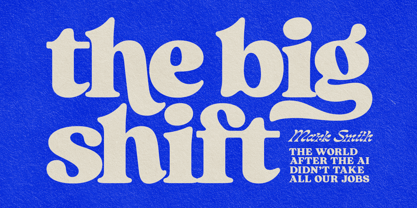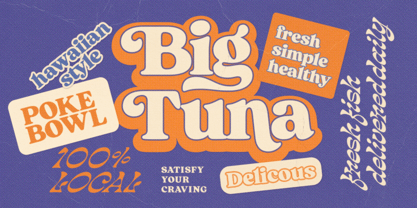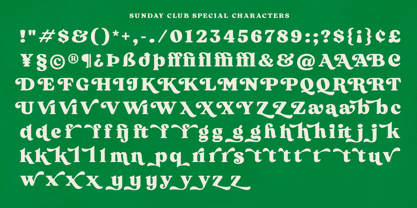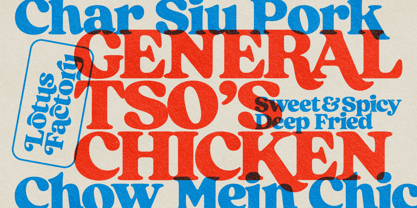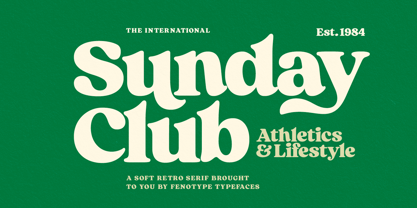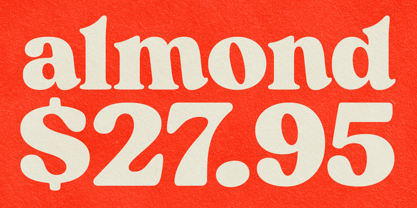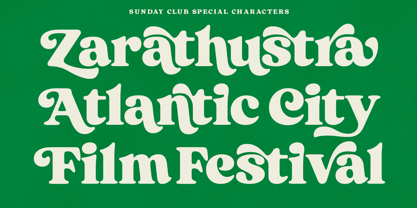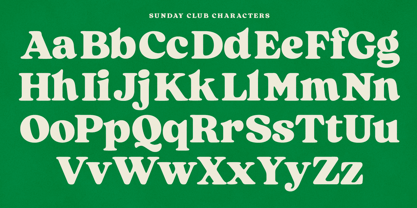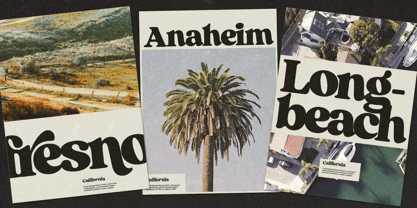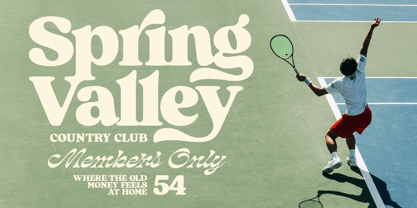
Sunday Club
by Fenotype
The Sunday Club Font Family was designed by Emil Karl Bertell and published by Fenotype. Sunday Club contains 1 styles.
Sunday Club is a blend of warm nostalgia and nonchalant upper-middle class confidence. It’s design is rooted in history but polished for today’s requirements.
Sunday Club’s style is equipped with total over 110 alternate characters set in various OpentType features: Swash, Stylistic and Titling Alternates for more swashy letters, Standard ligatures for f_f etc. and Discretionary Ligatures for a few unconventional ligatures. Even more extras available from Stylistic Set 1-5.